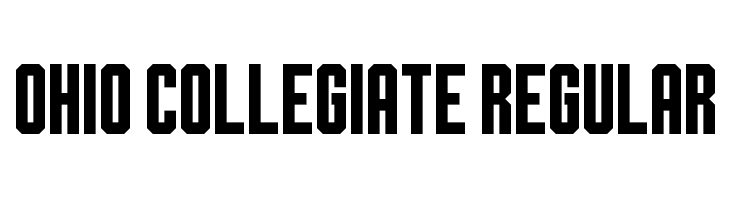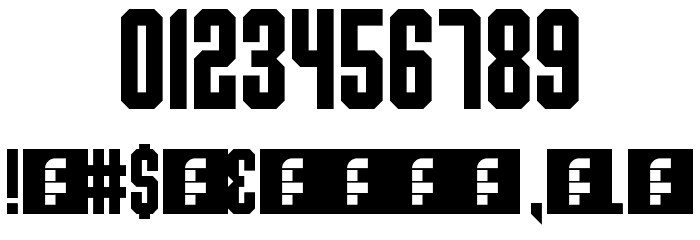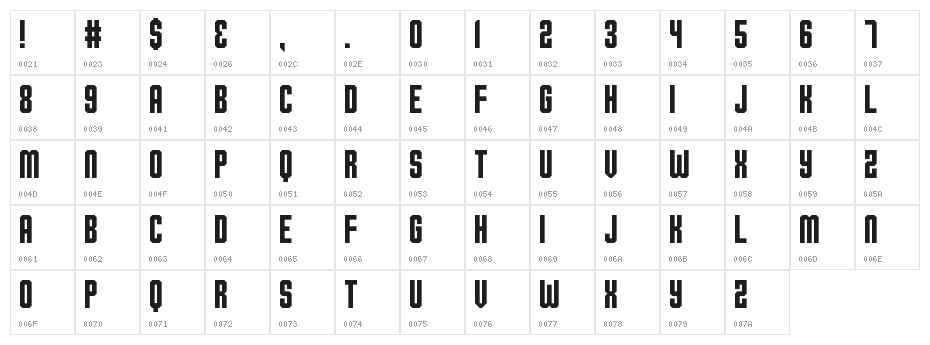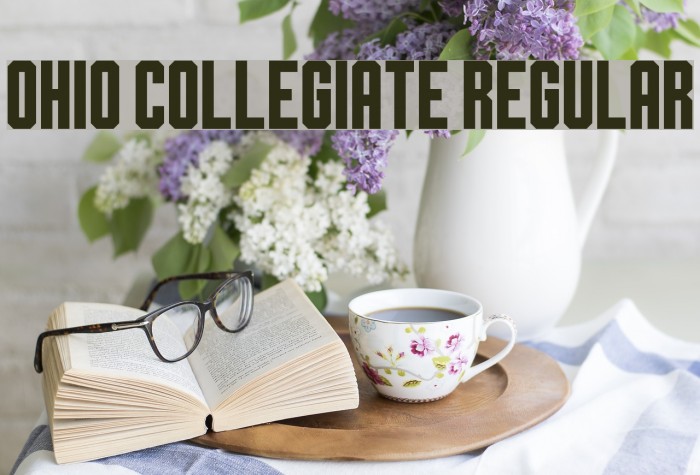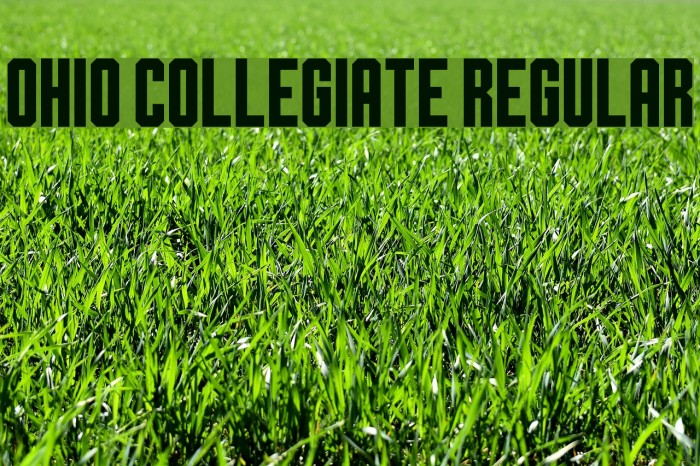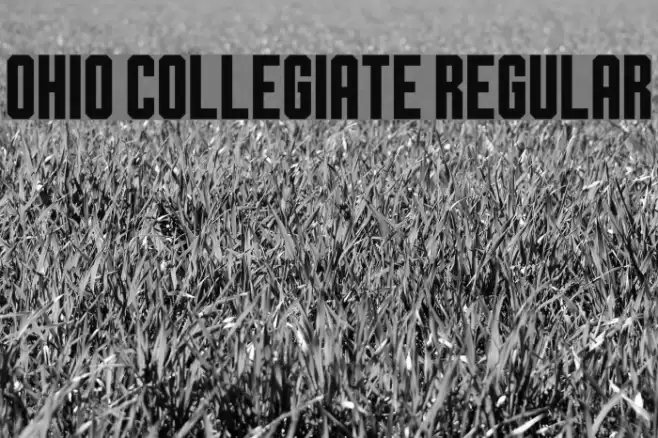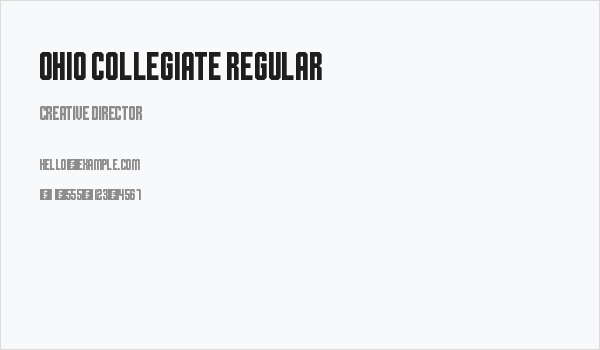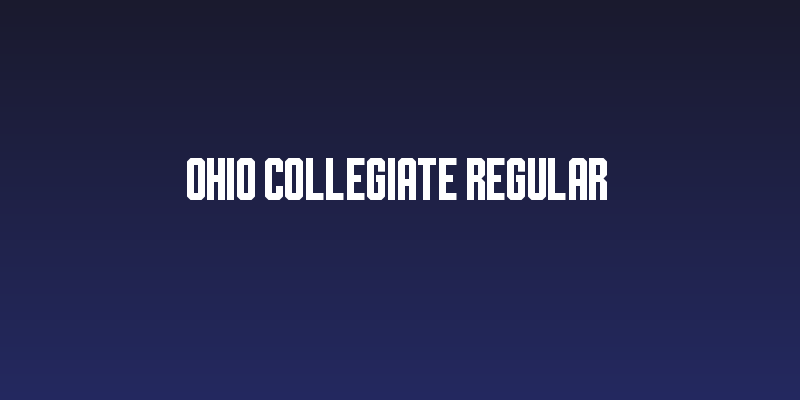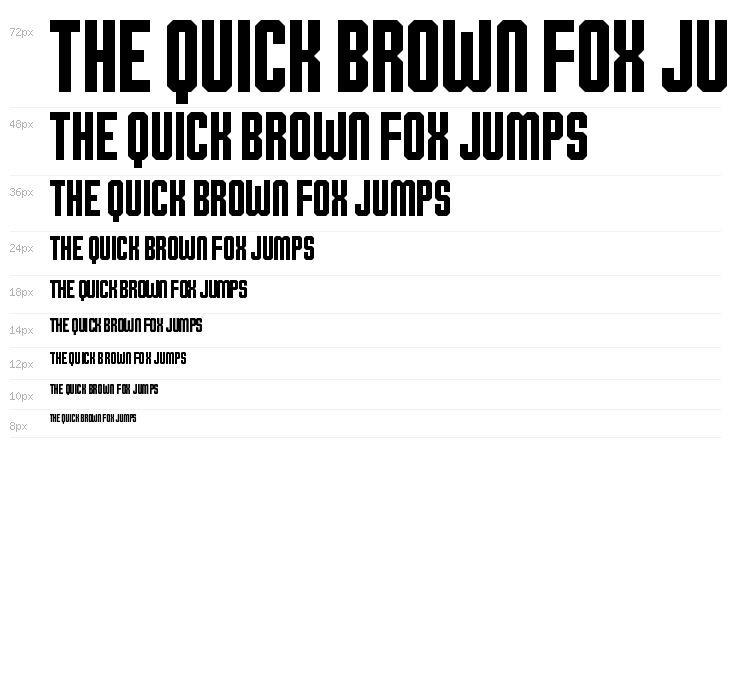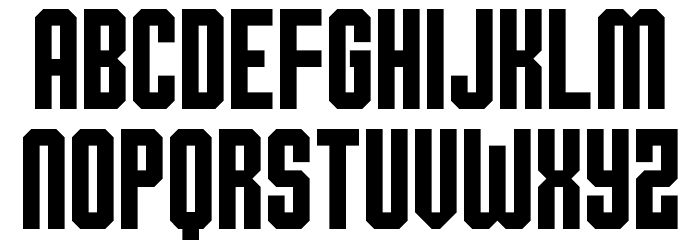
Ohio Collegiate Regular Font
Ohio Collegiate Regular Description
This font features a bold and impactful design with strong geometric shapes and a collegiate style. The uppercase letters are characterized by their blocky and angular forms, which convey a sense of strength and authority. The numbers and special characters maintain this robust aesthetic, making the font ideal for projects that require a commanding presence. The uniformity in stroke width across all characters contributes to a cohesive and structured appearance, suitable for creating a sense of tradition and reliability.
| Proposed Projects | Perfect for sports team branding, university merchandise, posters, and banners. |